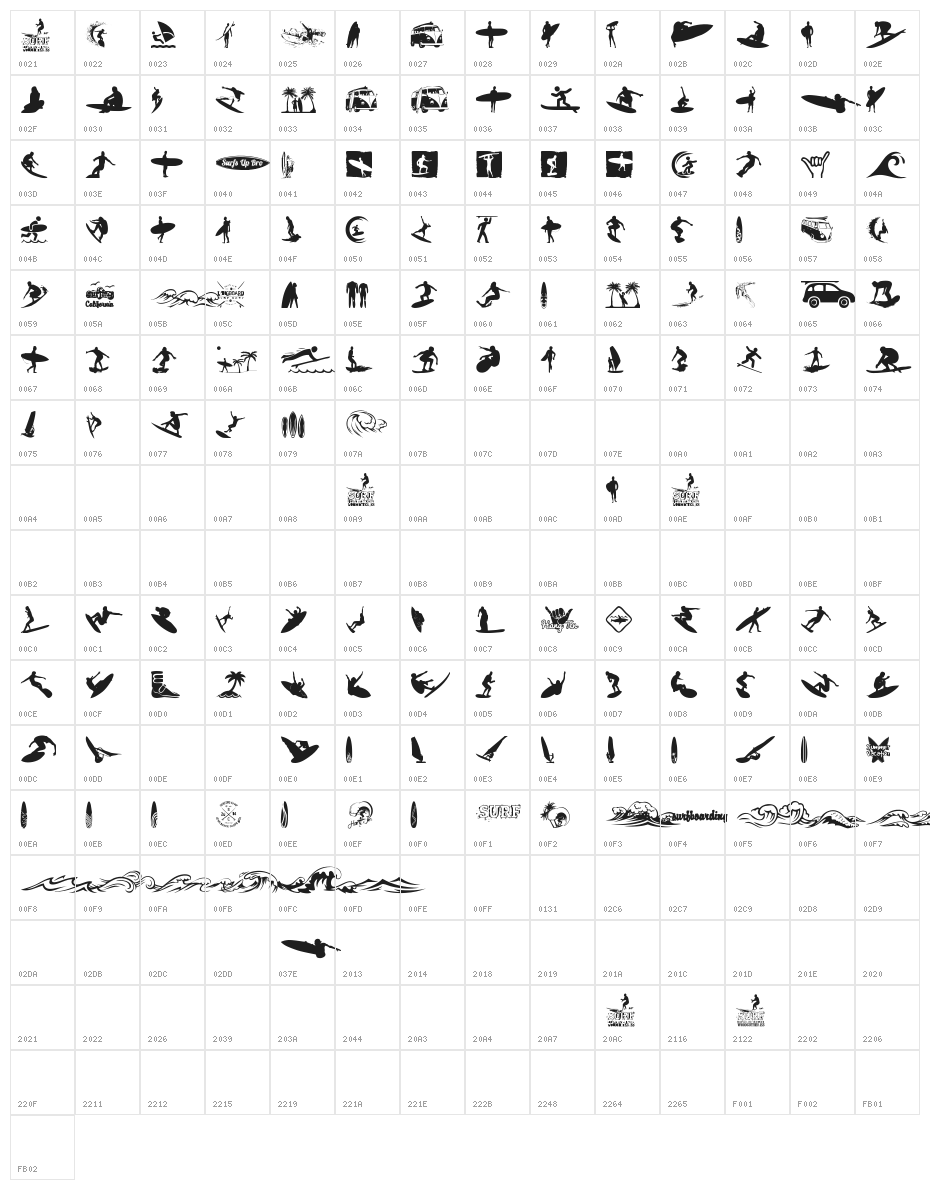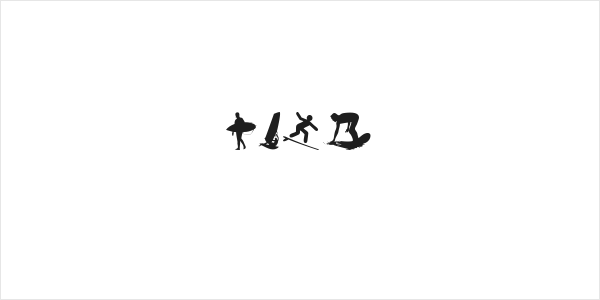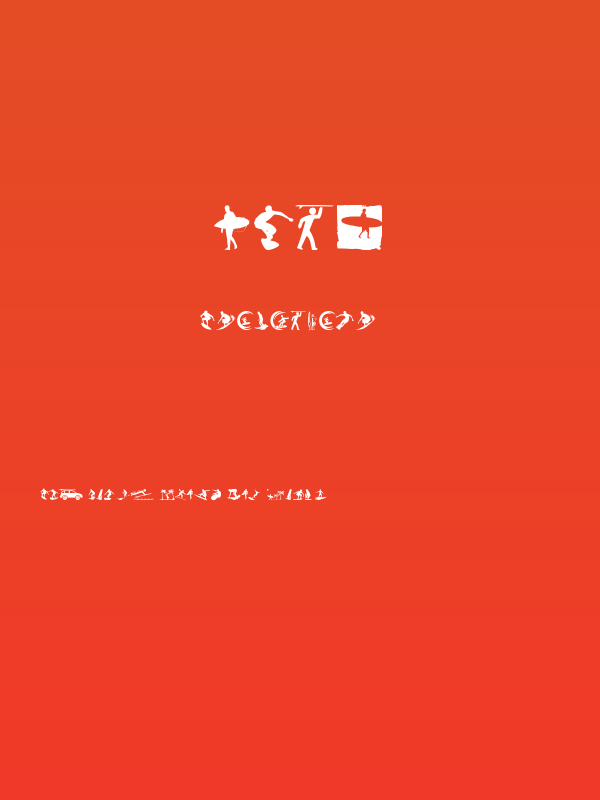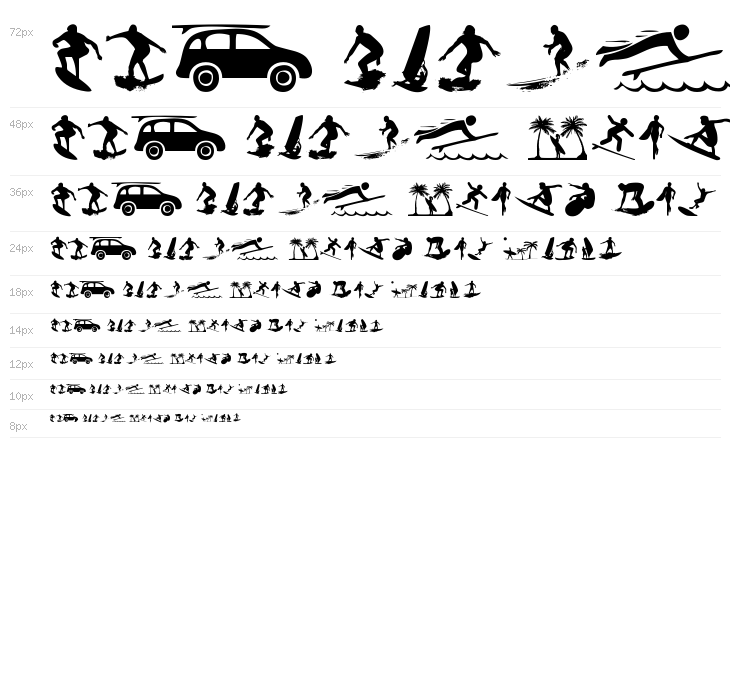
Surf Font
Surf Description
A decorative display font composed entirely of surfing-themed pictograms, including surfers in various poses, surfboards, waves, palm trees, vans, and beach motifs. Each character is represented by a unique silhouette or scene related to surf culture, with high contrast and bold, black shapes.
| Overall Style | Decorative, Playful, Thematic |
| Use Case | Logos, Posters, Headlines, Themed graphics |
| Proposed Projects | Posters, event flyers, summer party invitations, surf shop branding, themed merchandise, social media graphics. |